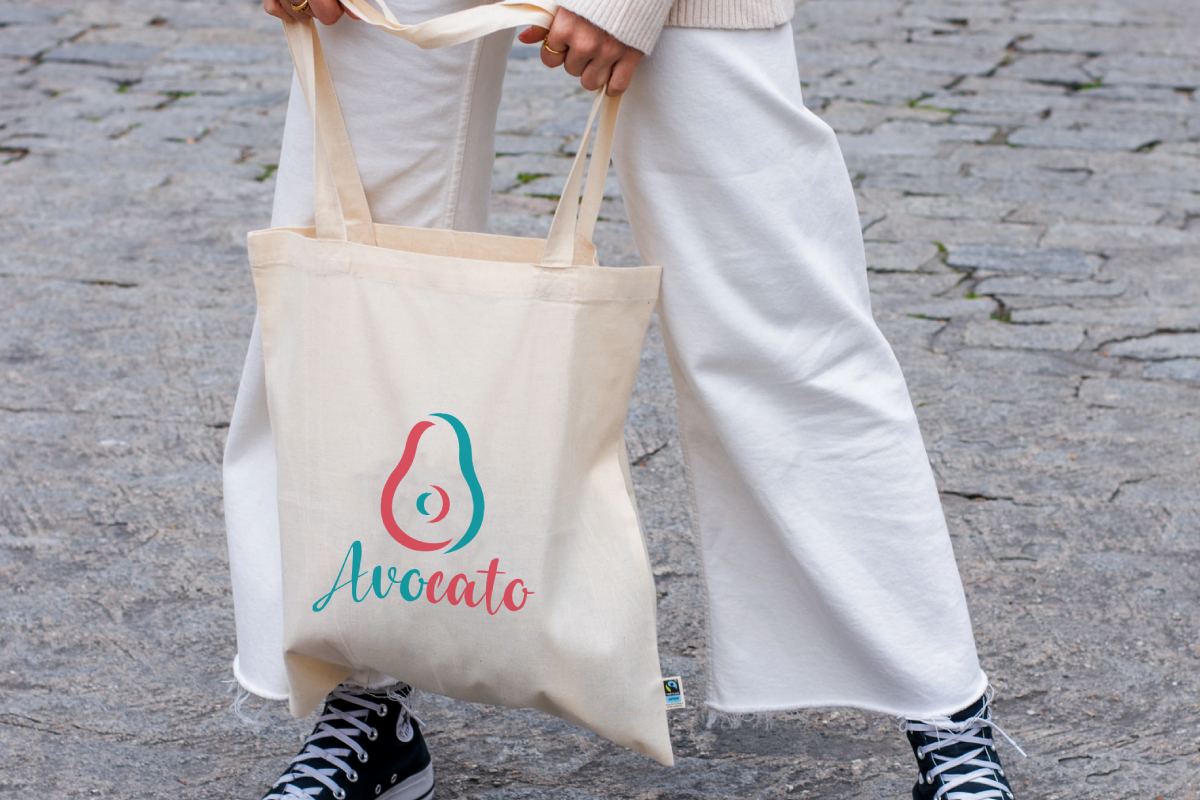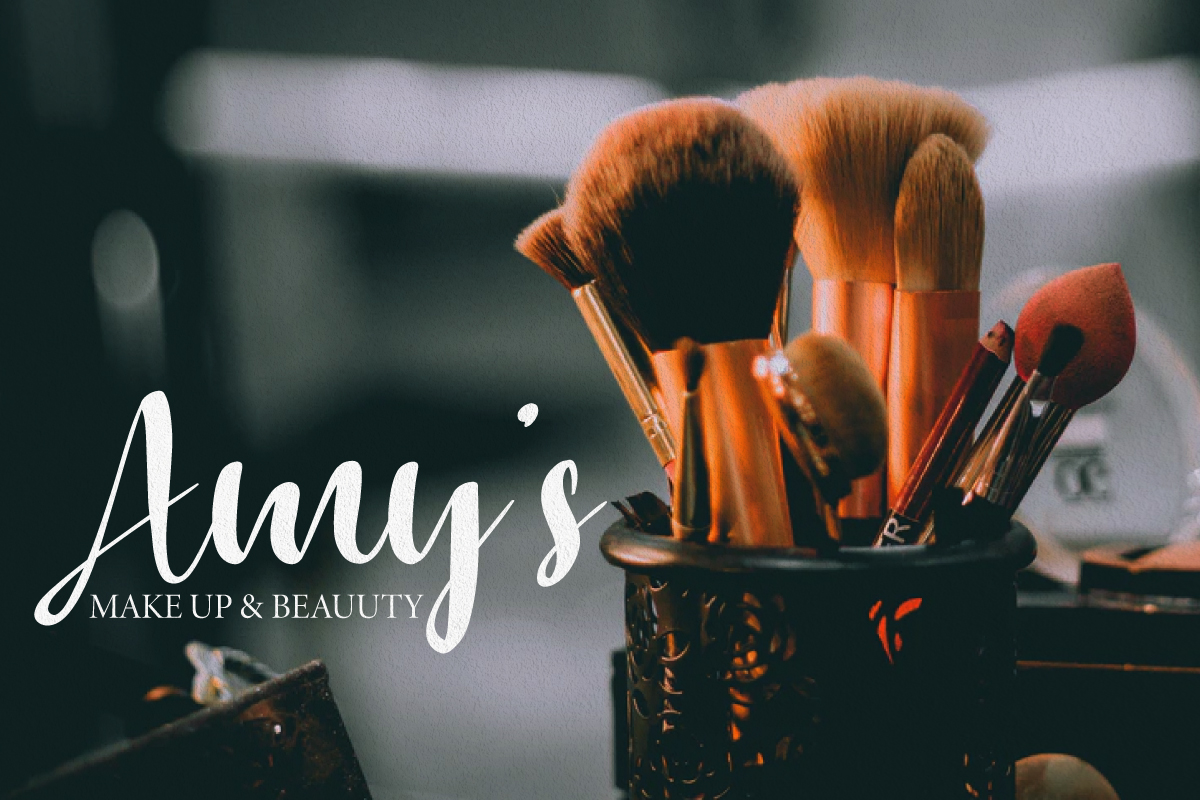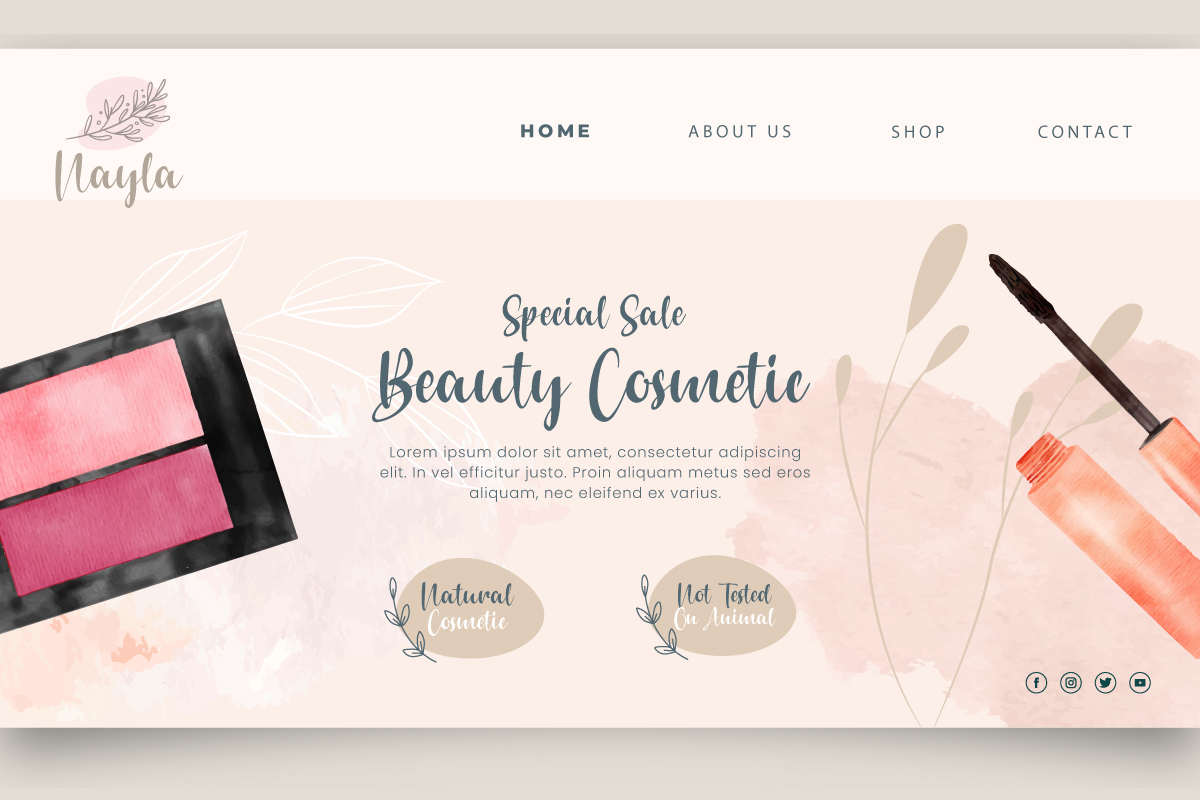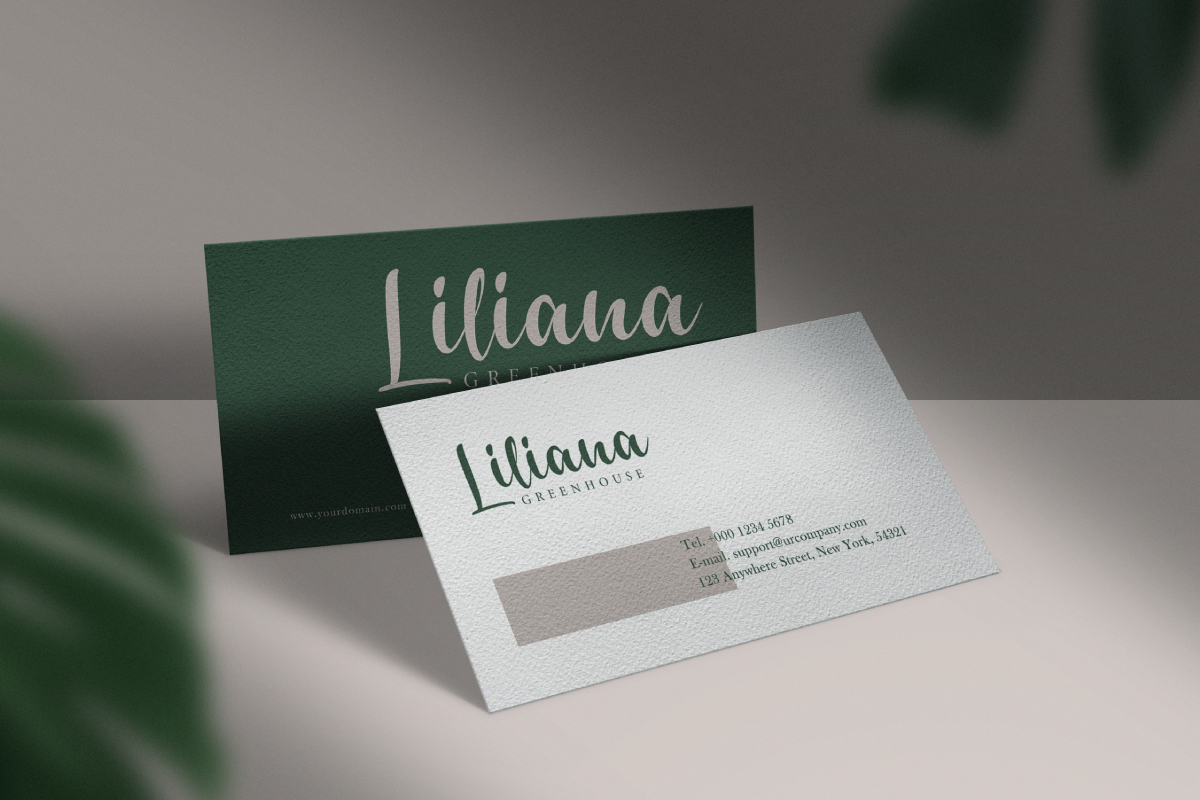
Soulfully Font
Soulfully Script Font
This Font will be awesome for many projects (some require extended license) including : branding, logo, stationery, business card, signage, flyer, brochure etc. The theme style of the font is elegant, handmade, old, casual, vintage, stylish, sophisticated and classic brush style. The font will be match for this typeface: home products, events, real estate, architect, law firm, florist, gardening, makeup artist, travel, hotel, musician etc